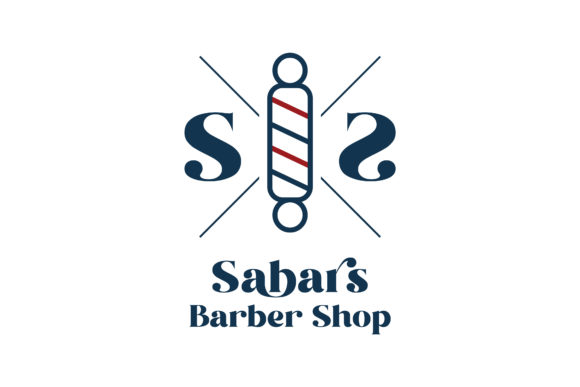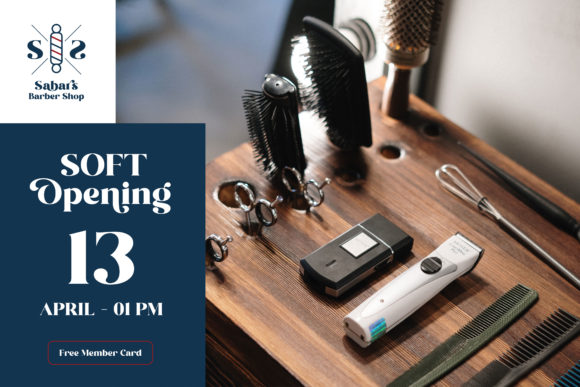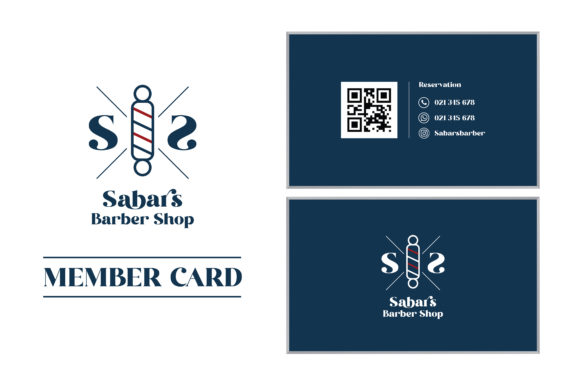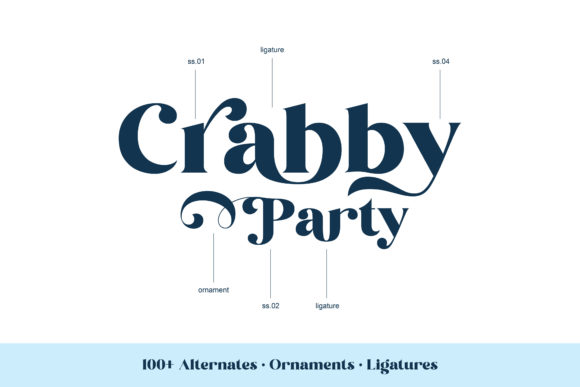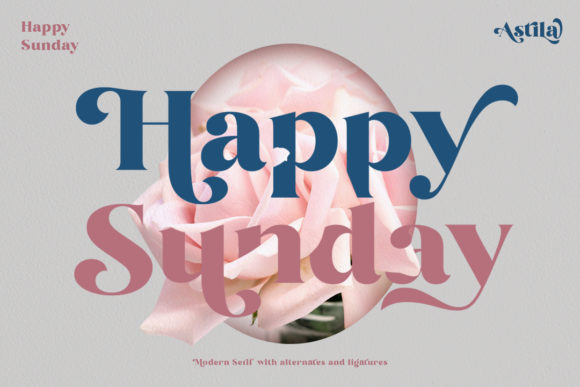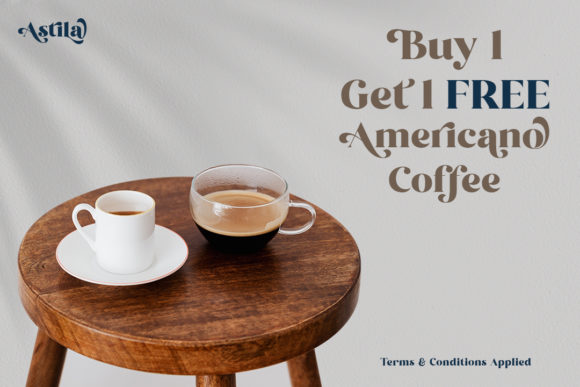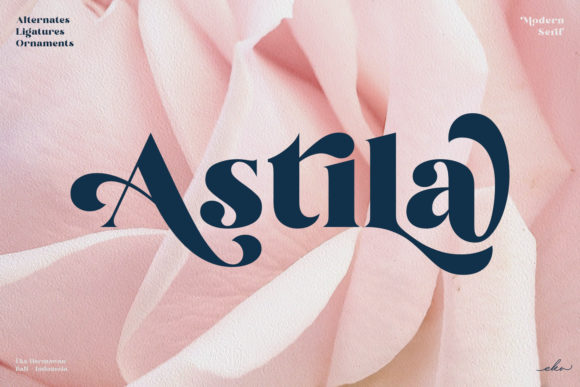
Astila Font: Elevate Your Designs with a Modern Serif Twist
Are you tired of using the same old fonts in your designs? Look no further than Astila, a modern and distinct serif font that’s sure to take your creations to the next level. With its bold and imposing style, Astila is the perfect choice for designers and crafters looking to add a touch of sophistication and elegance to their work.
The Power of Serif Fonts
Serif fonts have been a staple of design for centuries, and for good reason. The small lines or flourishes at the end of each letter give serif fonts a level of sophistication and refinement that’s hard to match with sans-serif fonts. But while traditional serif fonts can be beautiful, they can also be a bit, well, boring. That’s where Astila comes in.
What Makes Astila Special?
Astila is a game-changer in the world of serif fonts. Its modern and distinct style sets it apart from more traditional serif fonts, giving it a fresh and exciting feel that’s perfect for designers looking to push the boundaries of their craft. Whether you’re working on a logo, a brochure, or a website, Astila is the perfect choice for anyone looking to make a statement.
One of the things that sets Astila apart from other fonts is its incredible versatility. This font can be used in a wide range of design applications, from elegant and refined to bold and edgy. Whether you’re looking to create a sophisticated business design or a fun and playful project, Astila is the perfect choice. Its versatility also makes it a great choice for designers who like to experiment with different styles and techniques.
Design Ideas with Astila
So, what can you create with Astila? The possibilities are endless! Here are a few ideas to get you started:
• Logos: Astila’s bold and imposing style makes it perfect for logos that need to make a statement. Use it to create a sophisticated and elegant logo that will help your business stand out.
• Brochures: Astila’s classic serif style makes it a great choice for brochures and other marketing materials. Use it to create a professional and refined design that will help you connect with your target audience.
• Websites: Astila’s versatility makes it a great choice for websites, too. Use it to create a bold and eye-catching design that will help your website stand out from the crowd.
• Social Media Graphics: Astila’s modern style makes it perfect for social media graphics, too. Use it to create eye-catching and engaging graphics that will help you connect with your followers.
Why Choose Astila?
So, why choose Astila over other fonts? Here are just a few reasons:
• Unique Style: Astila’s modern and distinct style sets it apart from other serif fonts.
• Versatility: Astila can be used in a wide range of design applications, from elegant and refined to bold and edgy.
• Ease of Use: Astila is easy to read and works well in a variety of sizes and resolutions.
• High-Quality: Astila is a high-quality font that’s designed to deliver exceptional results.
In conclusion, Astila is a modern and distinct serif font that’s perfect for designers and crafters looking to elevate their designs. Its bold and imposing style, versatility, and ease of use make it a great choice for a wide range of design applications. Whether you’re working on a logo, brochure, website, or social media graphic, Astila is the perfect choice for anyone looking to make a statement. So why wait? Fall in love with Astila and start creating spectacular designs today!